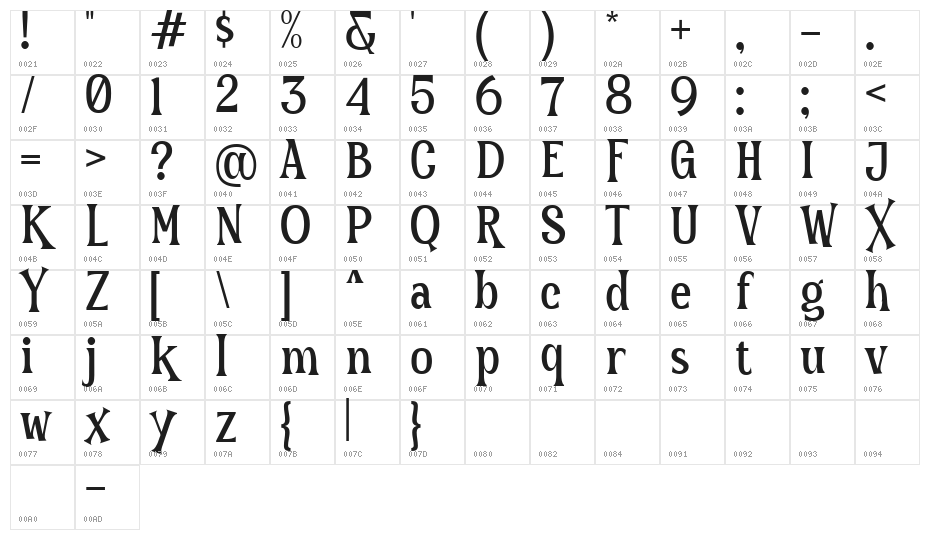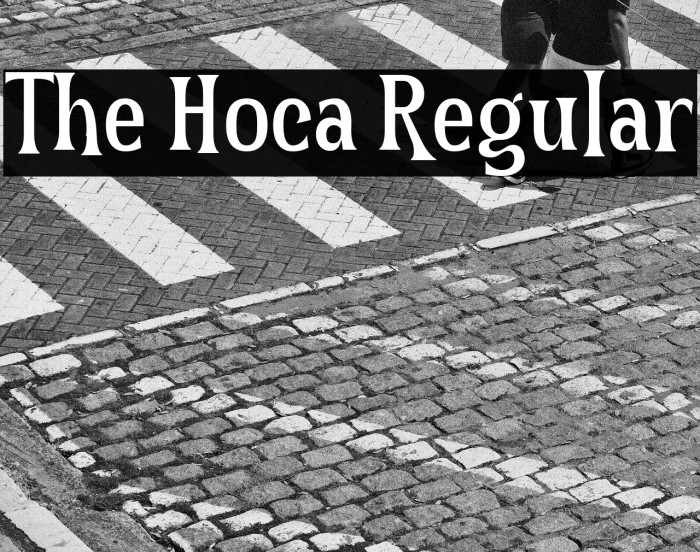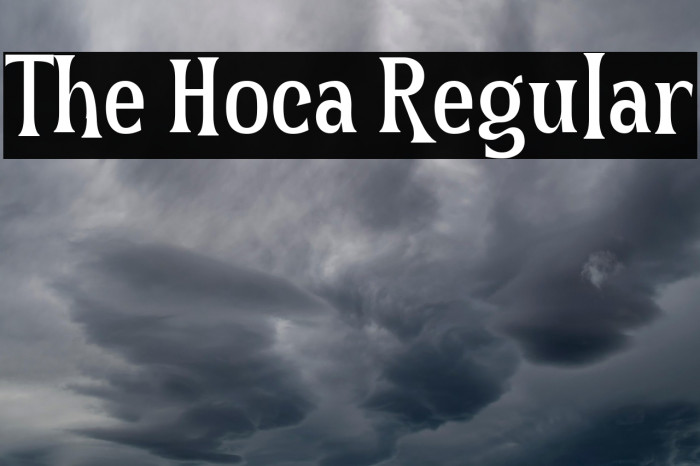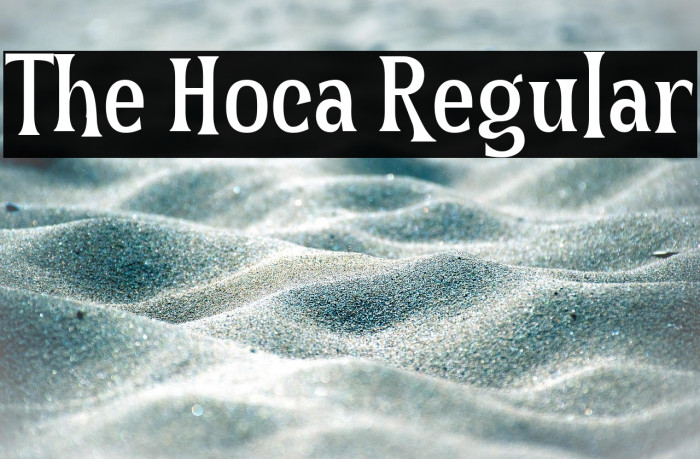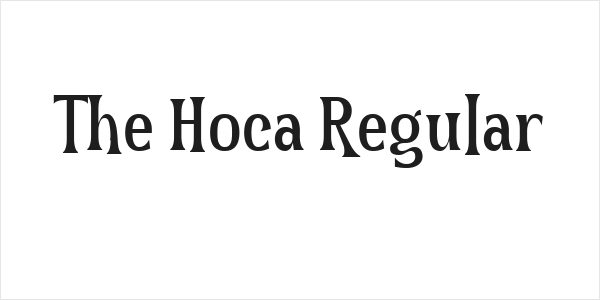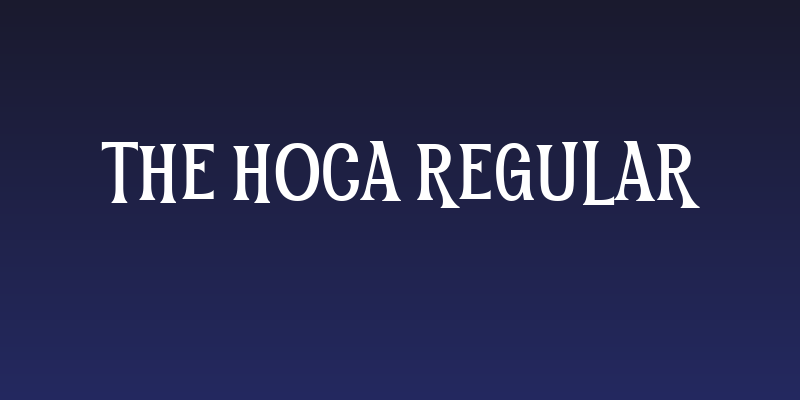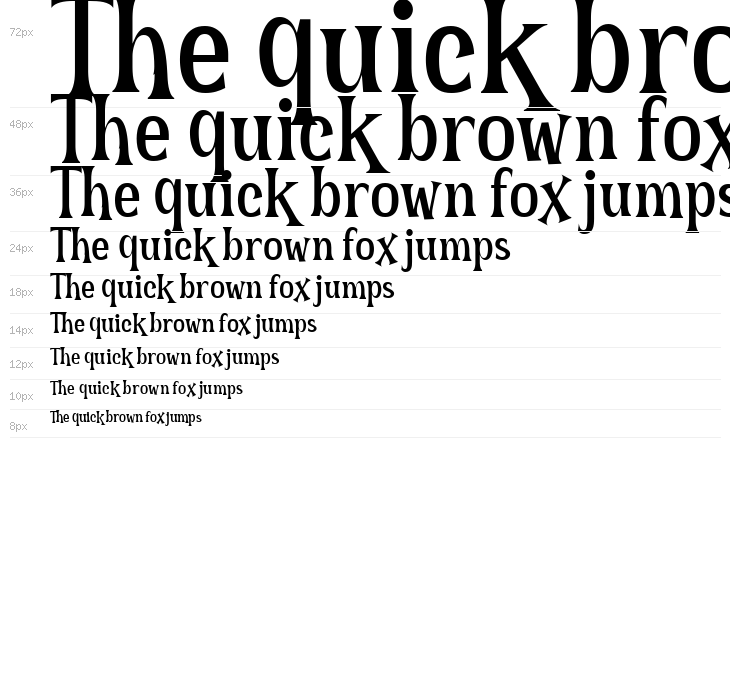
The Hoca Regular Font
The Hoca Regular Description
This font features a bold and striking design with a strong presence. The uppercase letters are characterized by sharp serifs and a slightly condensed form, giving them a commanding appearance. The lowercase letters maintain a consistent style with the uppercase, featuring similar serif details and a balanced weight. The numerals are clear and distinct, with a uniform width that complements the overall design. Special characters are well-integrated, maintaining the font's cohesive look. The font's style is both classic and modern, making it versatile for various applications.
Overall StyleClassic
Proposed ProjectsIdeal for headlines, branding, posters, and editorial design where a strong and elegant presence is desired.